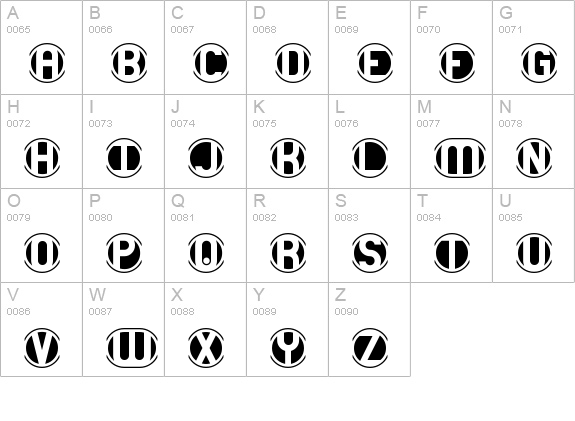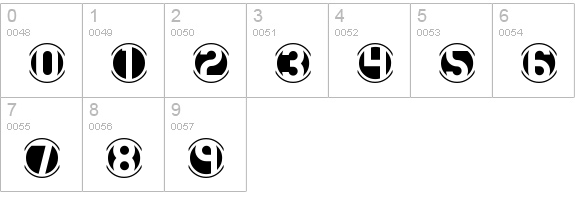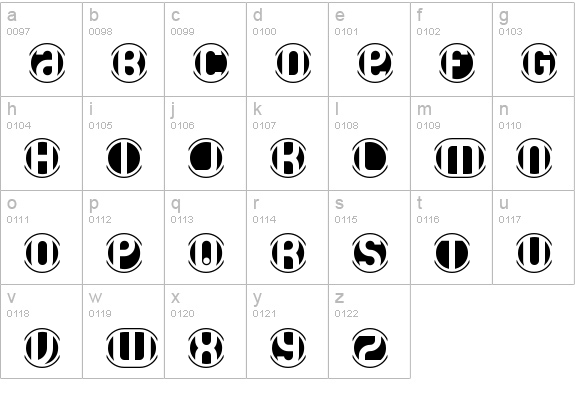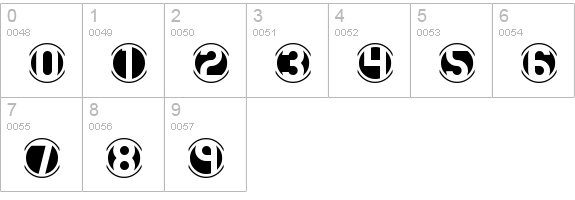
18 Holes BRK Font Details
The 18 Holes BRK font is a versatile and eye-catching typeface that is perfect for adding a touch of fun and creativity to your designs. With its bold and playful aesthetic, this font is sure to make a statement and stand out from the crowd. Its unique design features a mix of sharp edges and rounded corners, giving it a modern and dynamic look. Whether you're working on a poster, flyer, logo, or any other design project, the 18 Holes BRK font will bring a fresh and exciting element to your work. Its clean lines and smooth curves make it easy to read and appealing to the eye, making it a great choice for a wide range of applications. Best of all, the 18 Holes BRK font is available for free download at FontsMarket.com. So you can add this stylish and contemporary font to your collection without breaking the bank. Don't miss out on this fantastic opportunity to enhance your designs with the 18 Holes BRK font today!